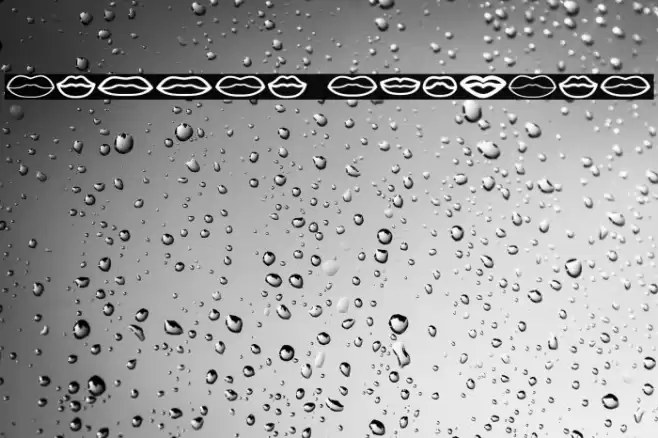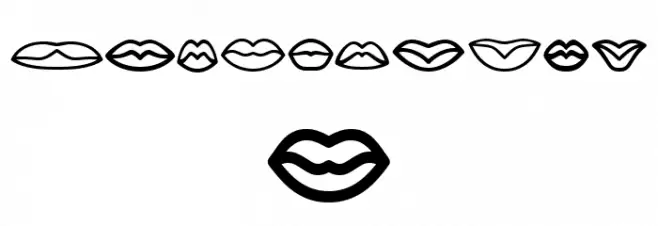
Labbra Regular Font
Labbra Regular Description
A playful decorative font where each character is represented by a unique stylized outline of lips, with varying shapes and expressions, all rendered in bold black lines.
Whimsical lips-themed decorative font from Uncategorized fonts.
- Proposed Projects: Greeting cards, playful branding, children’s products, party invitations, novelty posters.
- Overall Style: Decorative, Playful, Whimsical
- Use Case: Logos, Posters, Headlines, Themed events